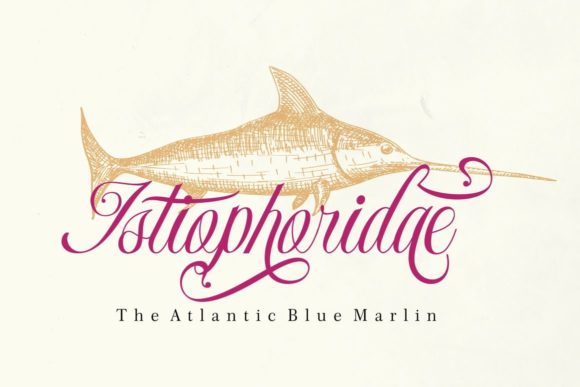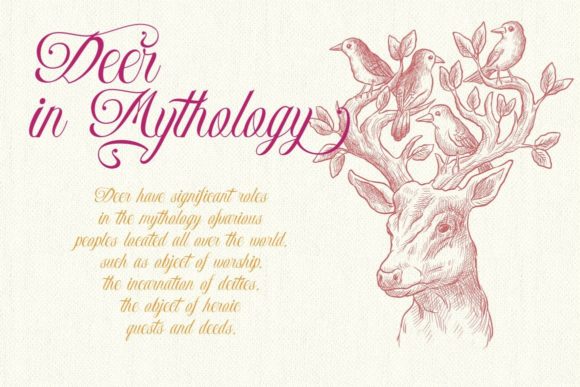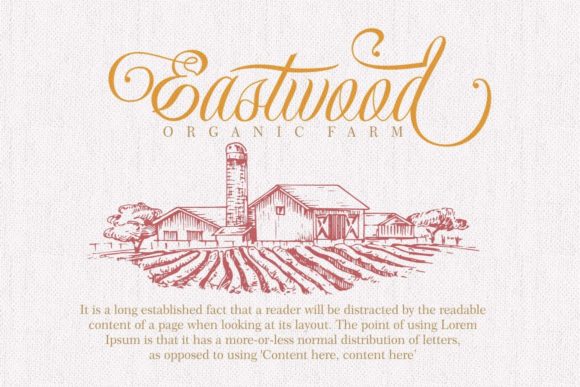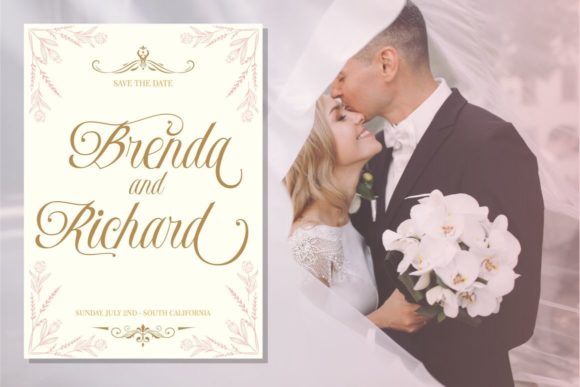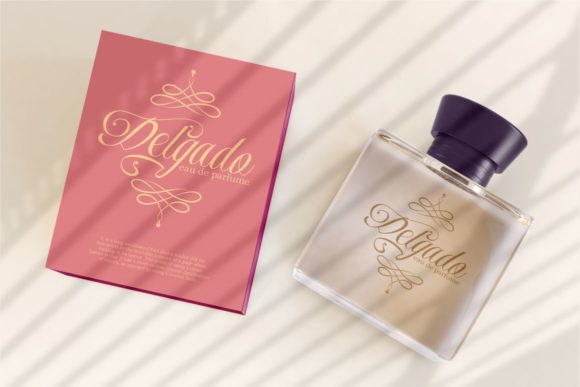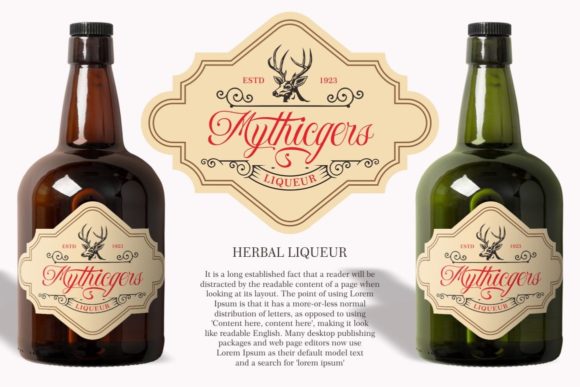
Introduction to Monaveen Luxia Font Font
Fonts play a crucial role in design, and the Monaveen Luxia Font font is a typeface that brings both character and versatility to any project. Whether you’re working on a branding project, a website, or a print design, the Monaveen Luxia Font font offers a unique style that can elevate your work.
Monaveen Luxia is a delicate, elegant and flowing handwritten font.
Key Features of Monaveen Luxia Font Font
Why Choose Monaveen Luxia Font Font?
The Monaveen Luxia Font font is more than just a typeface – it’s a design tool that helps you communicate your message with style and clarity. Its unique character set and versatile design make it suitable for a wide range of applications, from elegant invitations to bold headlines.
With its carefully crafted letterforms and balanced proportions, the Monaveen Luxia Font font ensures readability and visual appeal across all mediums.
What makes Monaveen Luxia Font font special?
The Monaveen Luxia Font font stands out with its unique design, exceptional readability, and versatility across various design applications.